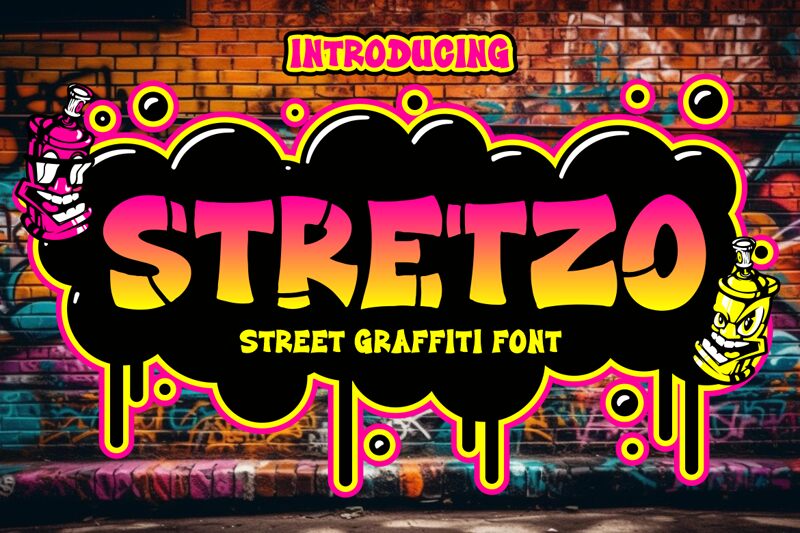
Stretzo font family by PutraCetol Studio encapsulates graffiti-inspired artistry at its finest. Featuring 4 unique font styles, this font family brings to life the vibrant and energetic essence of urban street art. Marked by bold contours and dynamic shapes, it embodies a youthful and expressive charm. Perfect for adding a contemporary appeal, Stretzo beautifully mimics the contrasting color palette and artistic flair of street graffiti.
Unleash the potential of Stretzo for magazine covers, album art, merchandise design, outdoor banners, posters, digital media advertising, art gallery brochures, book covers, product packaging, or eye-catching event flyers.